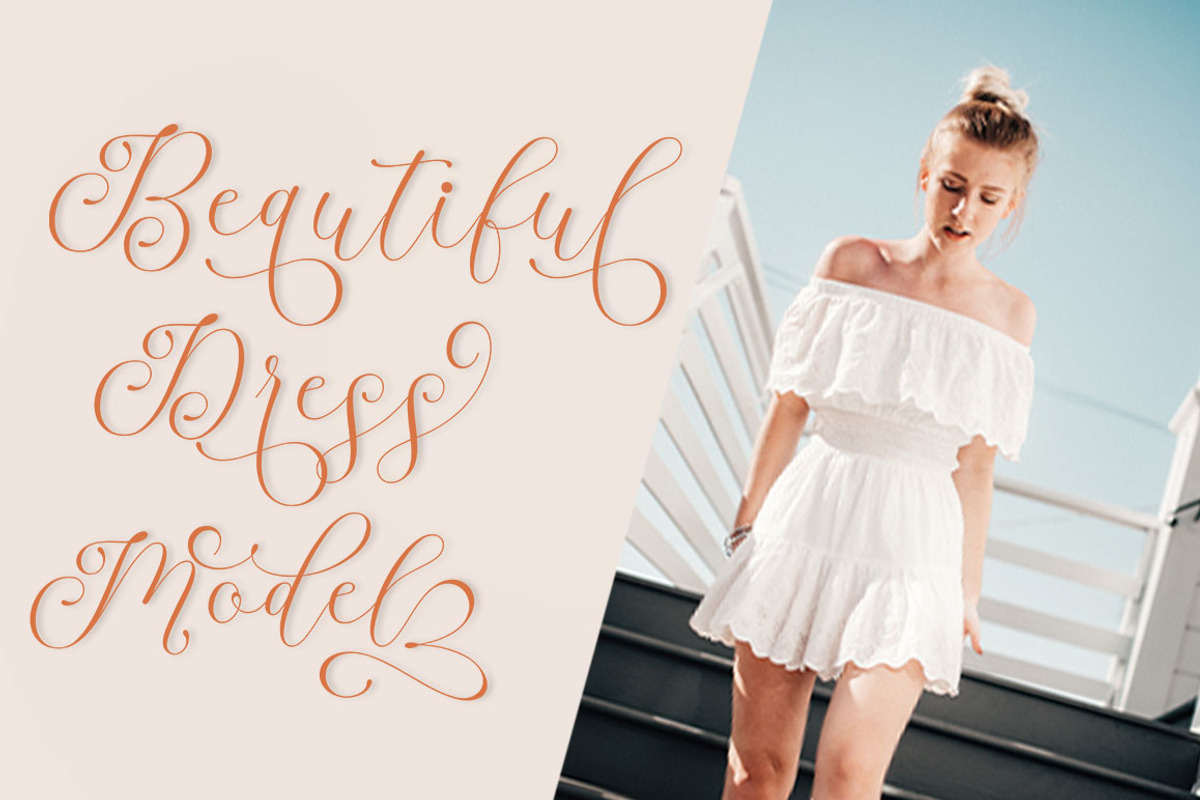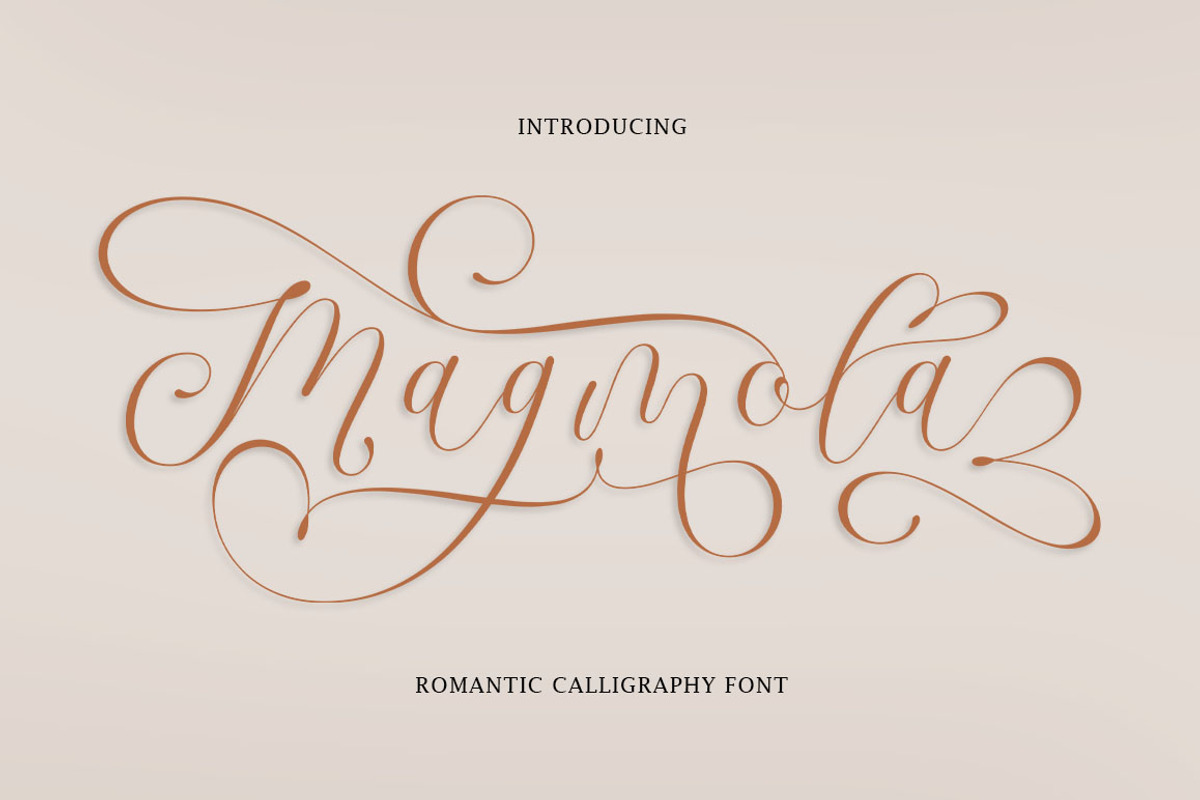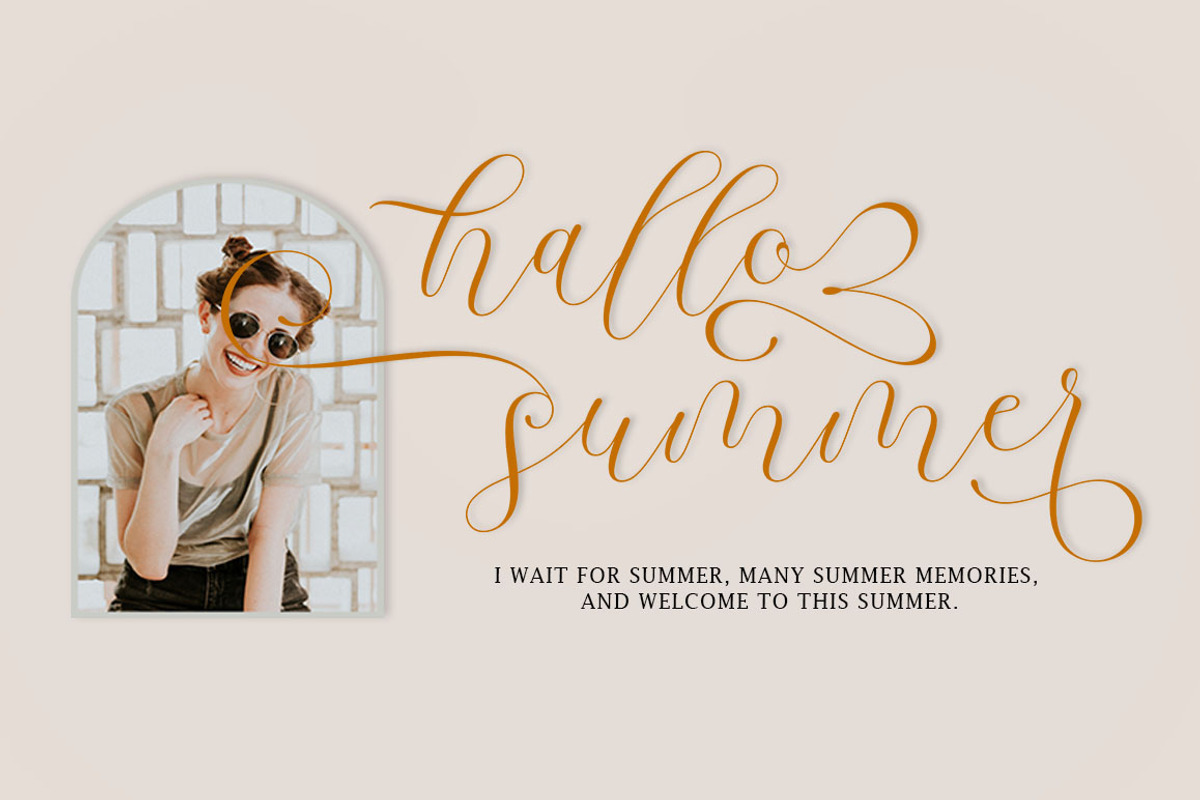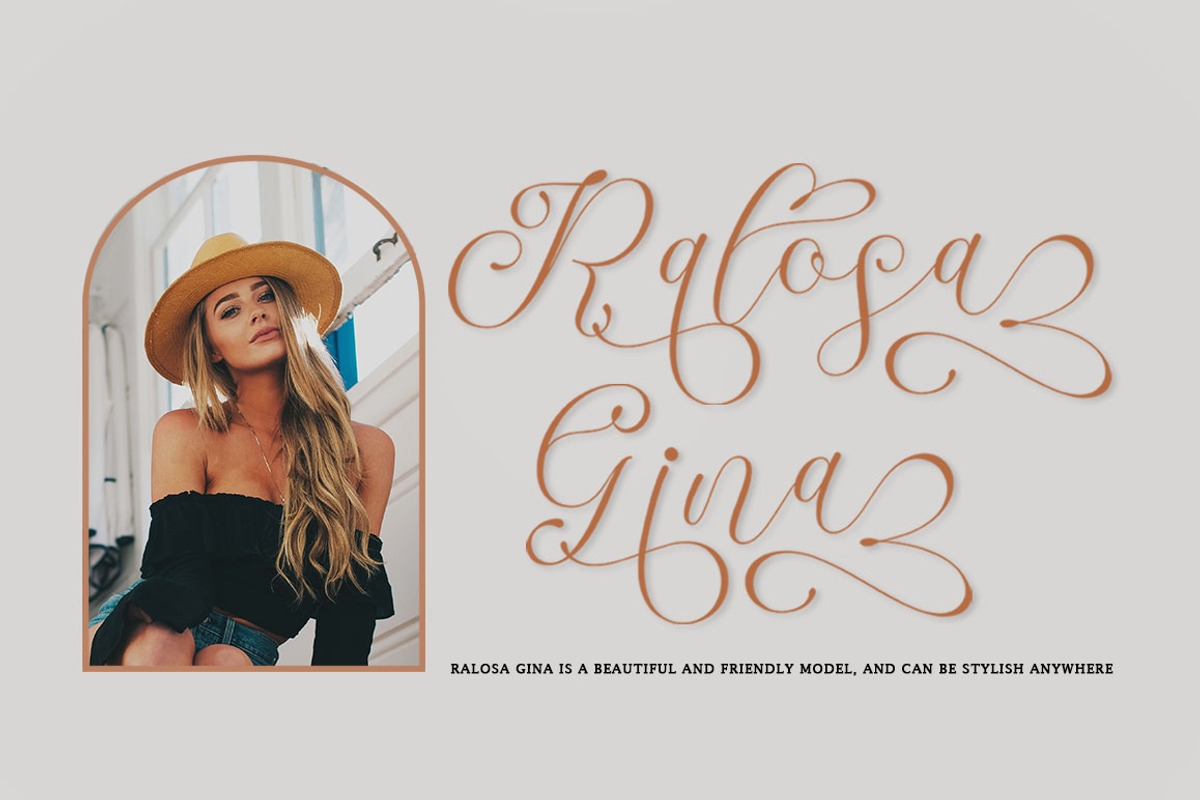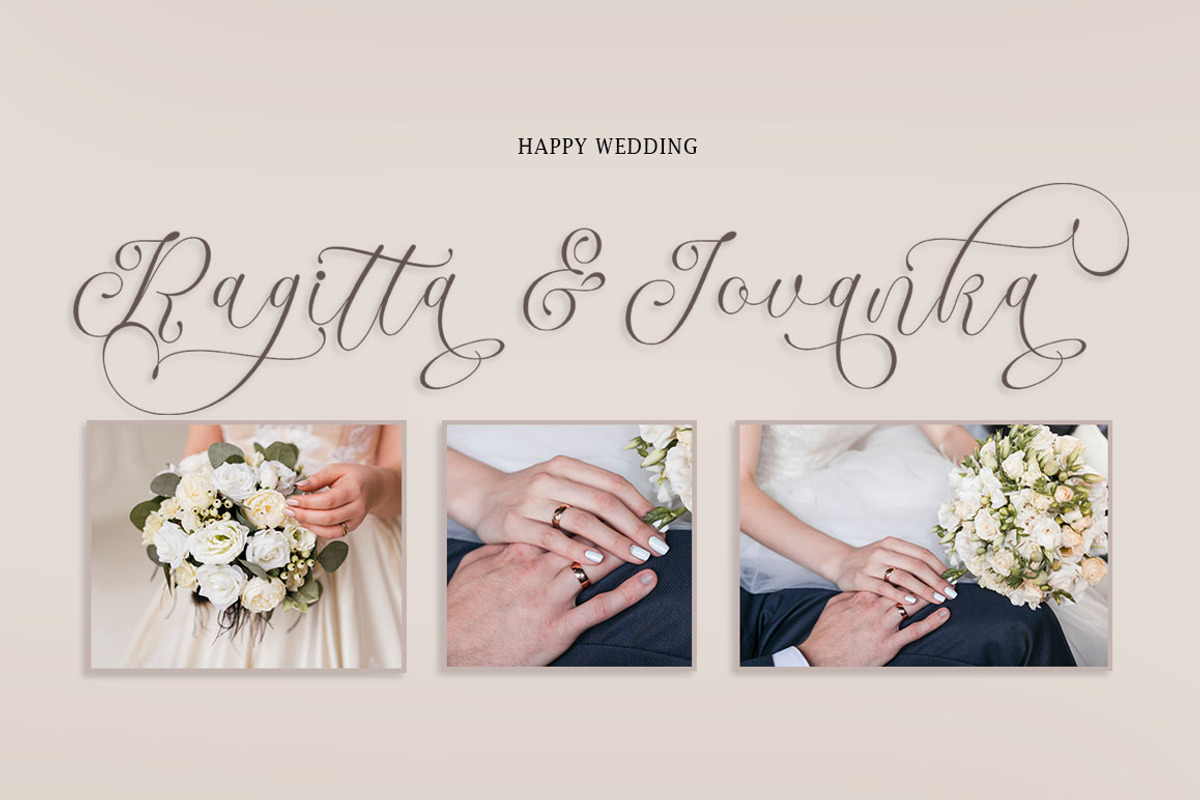
Magmola
Introduce
Magmola
Fresh & modern new script Magmola with handcrafted calligraphy style, decorative characters and dancing baseline! Very pretty for invitations such as greeting cards, branding materials, business cards, quotes, posters and more!!
Magmola is here. Alternative characters are divided into several Open Type features such as Swash, Stylistic Sets, Stylistic Alternate, Contextual Alternate. The Open Type feature can be accessed using Open Type savvy programs such as Adobe Illustrator, Adobe InDesign, Adobe Photoshop version of Corel Draw X, and Microsoft Word. And this Font has provided PUA unicode (custom coded font). so that all alternative characters can be easily accessed in full by a craftsman or designer.